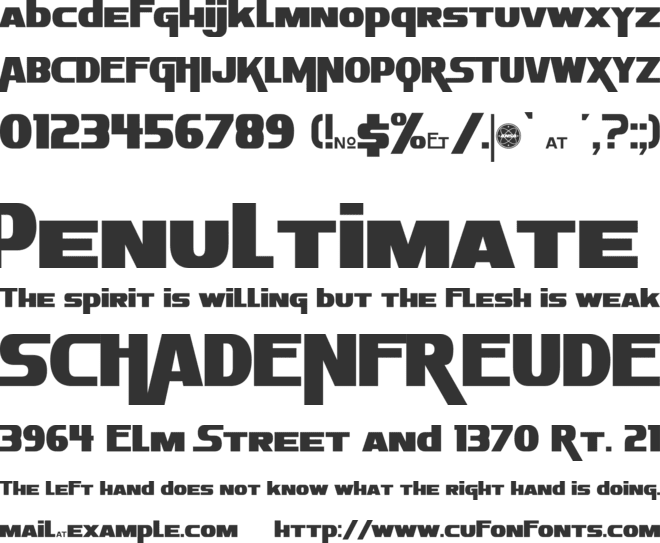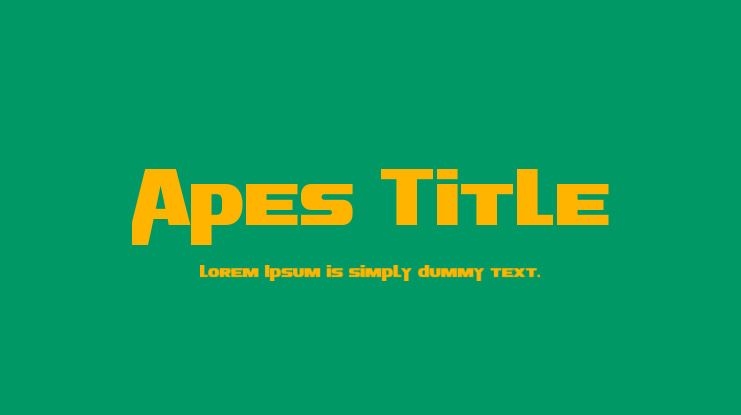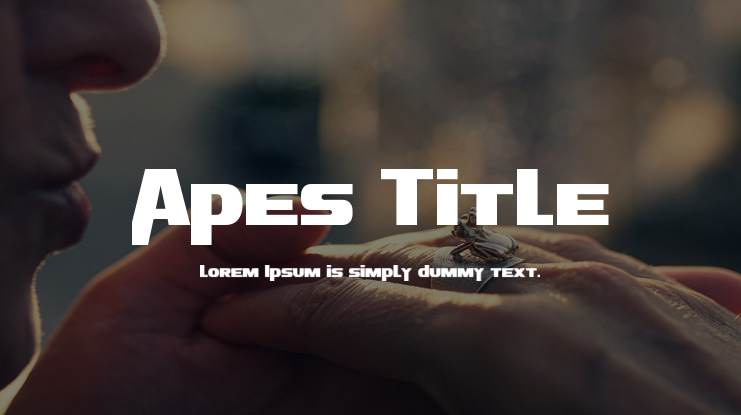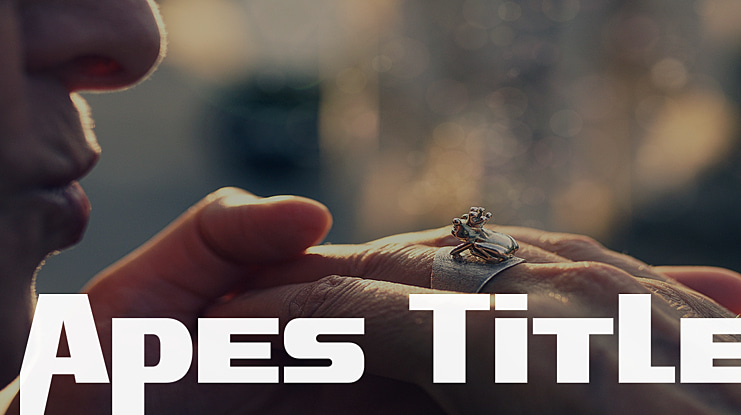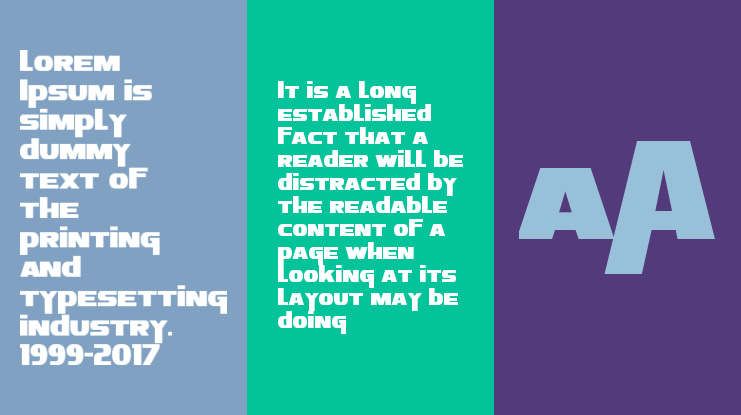
Apes Title Font
Anthony B. McElveen
Based on the distinctive font used on original promotional materials released with the classic Planet of the Apes movies in the '60s and '70s. Many extras. Worth exploring.